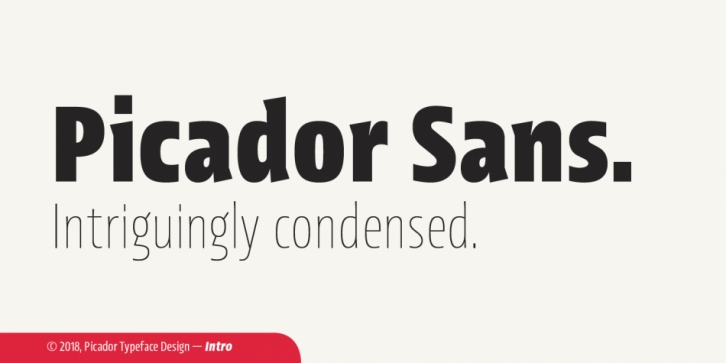
Designed by Maciej Włoczewski, Picador Sans is a sans serif font family. This typeface has twenty styles and was published by Maciej Włoczewski.
Picador Sans is a modern sans serif typeface. Intriguingly condensed. Distinctively eye-catching. Interestingly well-developed.
This family covers the Latin script – every weight has more than 1200 glyphs. The whole family consists of 10 weights and italics, small caps, superscript and subscript letters, oldstyle, tabular figures, ligatures and fractions.
Picador Sans is a perfect match for the elegance of the serif Praho Pro .